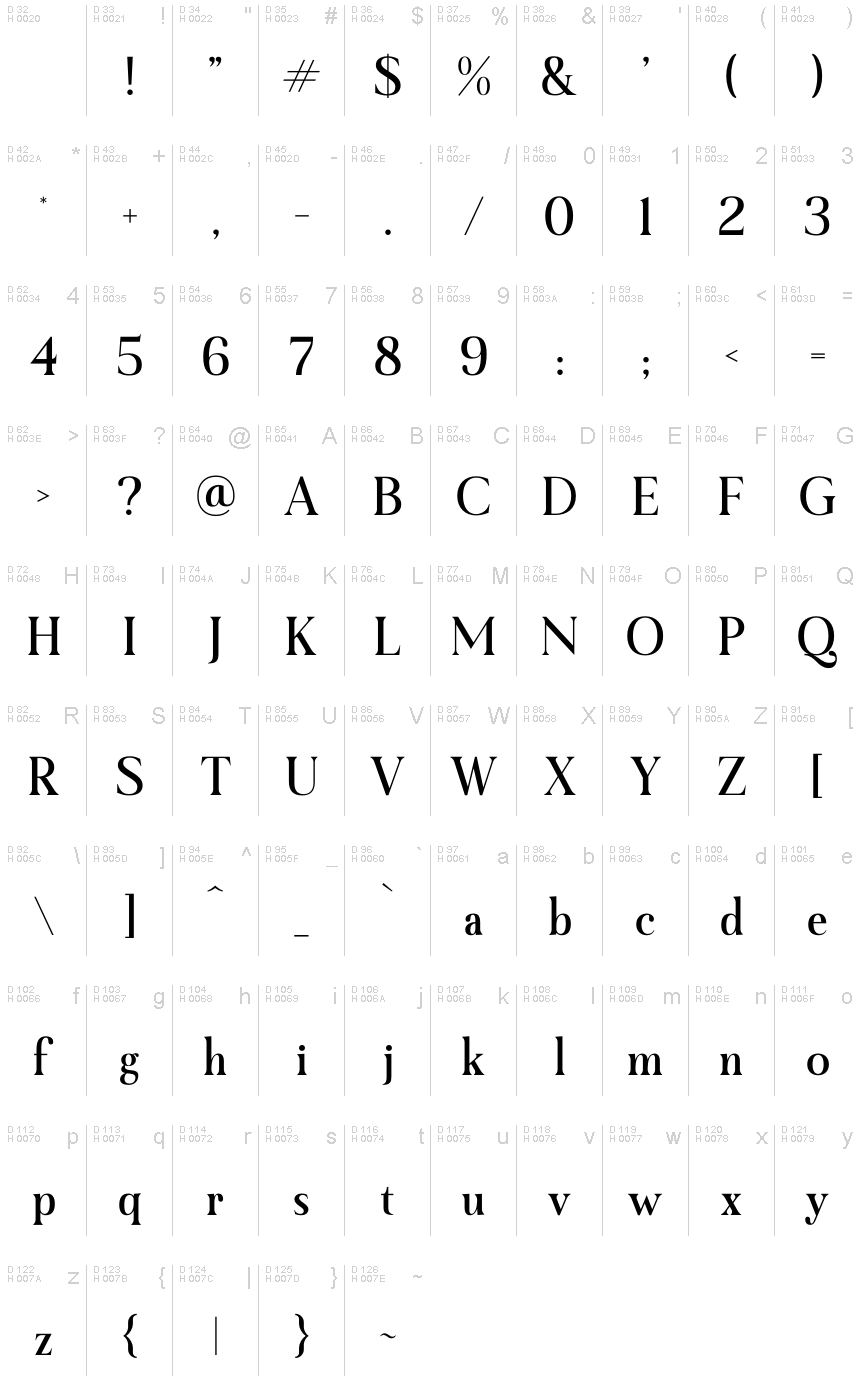
Gafigste
Gafigste, designed by Storytype Studio, is a captivating serif font that exudes a timeless elegance. Its refined letterforms and graceful curves create a harmonious balance, evoking a sense of sophistication and sophistication.
The font's distinctive features, such as the subtle flared serifs and the seamless flow between strokes, lend it a distinctive personality that commands attention.
Gafigste's versatility allows it to seamlessly integrate into a wide range of design applications, from high-end editorial layouts to elegant branding and packaging. Its refined aesthetic makes it a natural choice for projects that require a touch of sophistication and timelessness, whether in print or digital mediums.